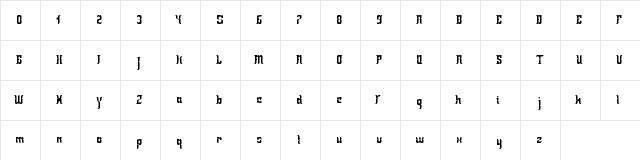
Loyal TTC alt caps Regular
Design Context for Loyal TTC alt caps Typeface
Loyal TTC alt caps is a composed and adaptable typeface that performs quietly and consistently across a wide range of design contexts.